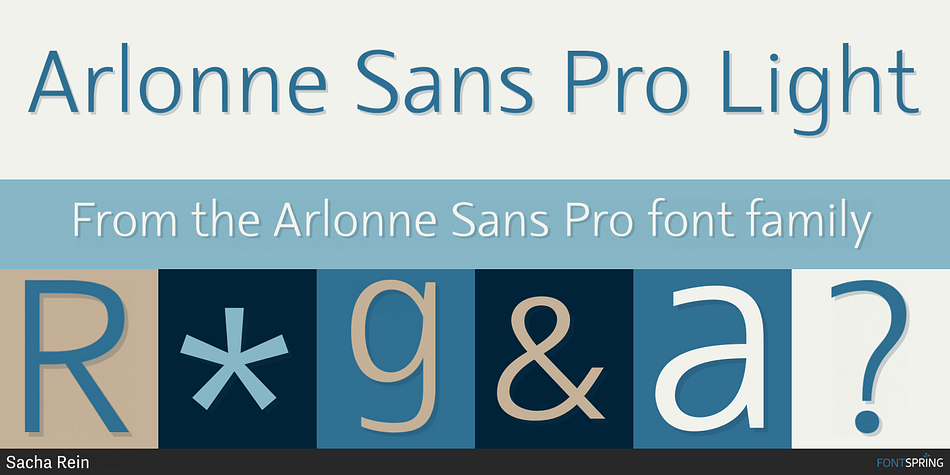
Arlonne Sans Pro Light
Arlonne Sans Pro is a sans serif font family. This typeface has eight styles and was published by Sacha Rein.
Arlonne Sans Pro was conceived by Sacha Rein between 2015 and 2019 with a comfortable reading experience in mind. It’s a humanist sans with neoclassical influences. Arlonne is a comprehensive font family with four weights and matching italics. It has a character set of about 1800 glyphs, including extended latin, small capitals, Cyrillic (with Bulgarian, Serbian, Macedonian and Ukrainian) and Greek (with Archaic and Polytonic), math symbols, figure styles and automatic fractions, ligatures, stylistic alternates and many more OpenType features.
The goal was to achieve simplicity without sacrificing personality. The generous x-height and the contrast of strokes are increasing as the font gets bolder, resulting in relatively open counters even at the heaviest weight. This makes the font especially suitable for body text, even though the carefully designed characters work well for display purposes. The name Arlonne is derived from the small city of Arlon, a Walloon municipality of Belgium located in and capital of the province of Luxembourg.
Spacing and kerning have been taken care of by Igino Marini’s amazing iKern service.